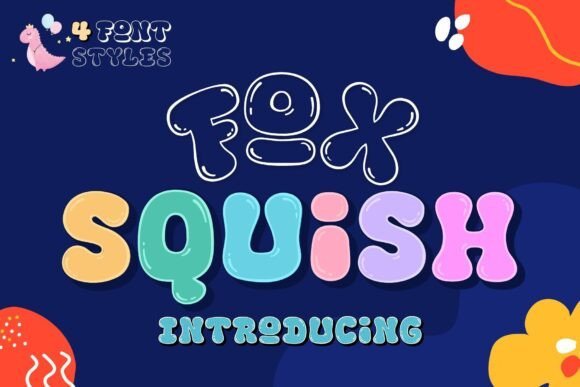
Get Ready to Squish Your Creativity!
Have you ever stumbled upon a design project that makes you feel like a kid in a candy store? You know, that magical moment when inspiration strikes and you just can’t wait to start brainstorming ideas and bringing them to life? That’s exactly what happens when you discover the perfect font – one that makes your design pop and leaves a lasting impression.
Meet Fox Squish Font, a vibrant display font family that’s bursting with energy and personality. Designed to add a playful touch to your creative projects, Fox Squish Font is perfect for branding, kids’ designs, packaging, greeting cards, social media graphics, and more. As a designer, you’ll appreciate the versatility and fun that this font brings to the table – making it a valuable addition to your design toolkit.
Fox Squish Font Key Features
- Font Size: The font comes in a single weight, with a height of approximately 500 units in the font metrics, making it suitable for use in various design contexts.
- Unique Characteristic: The font features a unique, hand-drawn aesthetic with a “squished” feel, giving it a distinctive and eye-catching appearance.
- Language Support: Fox Squish Font supports a wide range of languages, including Latin, Cyrillic, and Greek scripts, making it a versatile choice for global design projects.
Review of Fox Squish Font
Overall, I’m quite fond of Fox Squish Font. It’s a playful, whimsical design that’s perfect for projects that need a touch of excitement. ✨ The font’s unique squishy design makes it visually appealing and fun to work with. It’s also highly versatile, suitable for various applications such as logos, branding materials, and even children’s book illustrations.
The font’s open type features are another strength. It includes a wide range of characters, including accented letters, punctuation, and even some fun symbols. ✨ The font’s spacing and kerning are also well-executed, making it easy to read and set in various contexts.
- ⚠️ The font’s squishy design can be overwhelming in large blocks of text, so it’s best used in smaller quantities or in conjunction with other fonts.
- ⚠️ The font’s unique design may not be suitable for formal or professional applications, as it may come across as too playful or juvenile.
In conclusion, Fox Squish Font is a delightful addition to any designer’s toolkit. While it may have some limitations, its unique design and versatility make it a great choice for projects that need a touch of whimsy. With proper use and consideration of its limitations, Fox Squish Font is sure to bring a smile to your face and a dash of fun to your design projects. ✨
Tips for Getting the Most Out of Fox Squish Font
Use Fox Squish Font for creative and playful designs, such as children’s books, greeting cards, and social media graphics.
Combine Fox Squish Font with other fun and playful fonts to create a unique and eye-catching design.
Experiment with different font sizes and colors to create a dynamic and engaging design.
Fox Squish Font is commonly used for:
Children’s book covers and illustrations
Greeting cards and party invitations
Social media graphics and advertising
Playful and creative designs in general